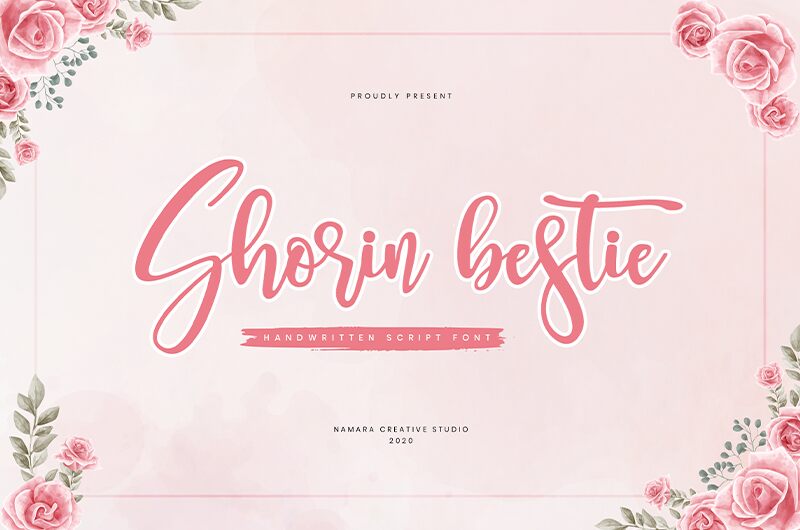
Shorin bestie
Charming handwritten script font with varying of start and end swashes, character alternates and unique symbol. It looks stunning on wedding invitations, thank you cards, quotes, greeting cards, logos, business cards and every other design which needs a handwritten touch.